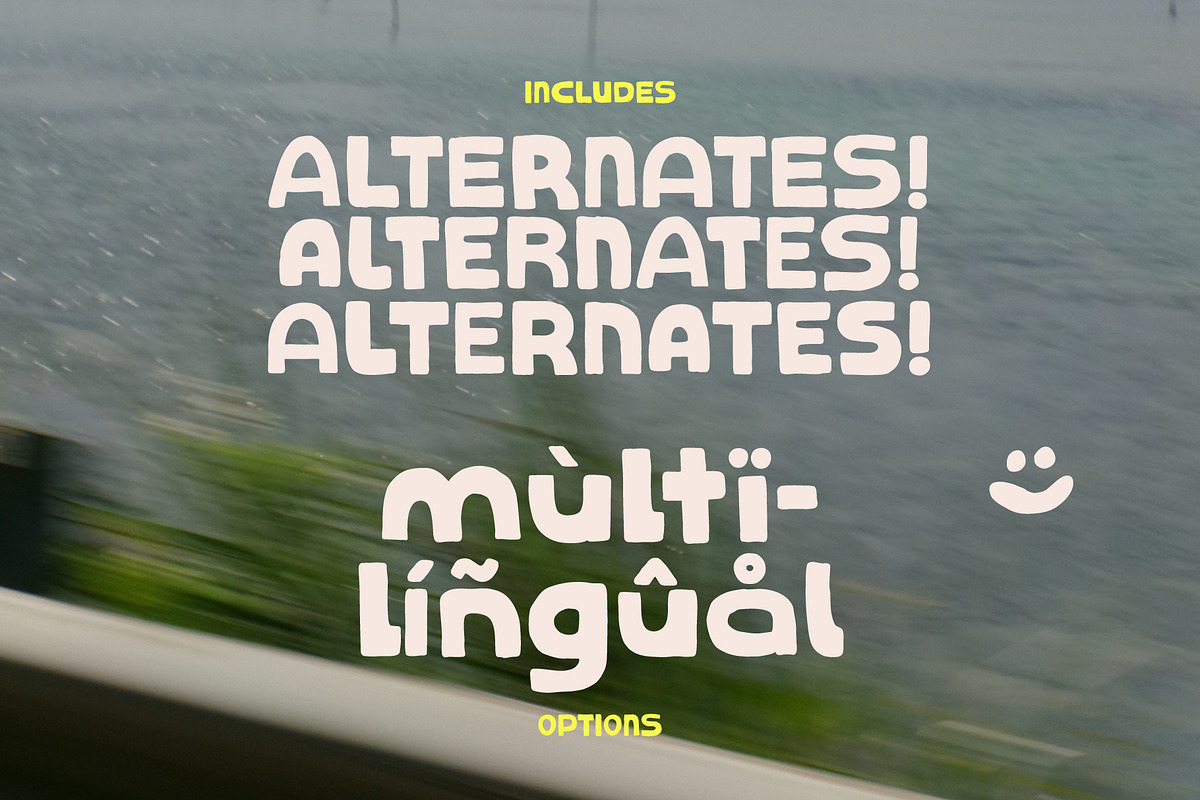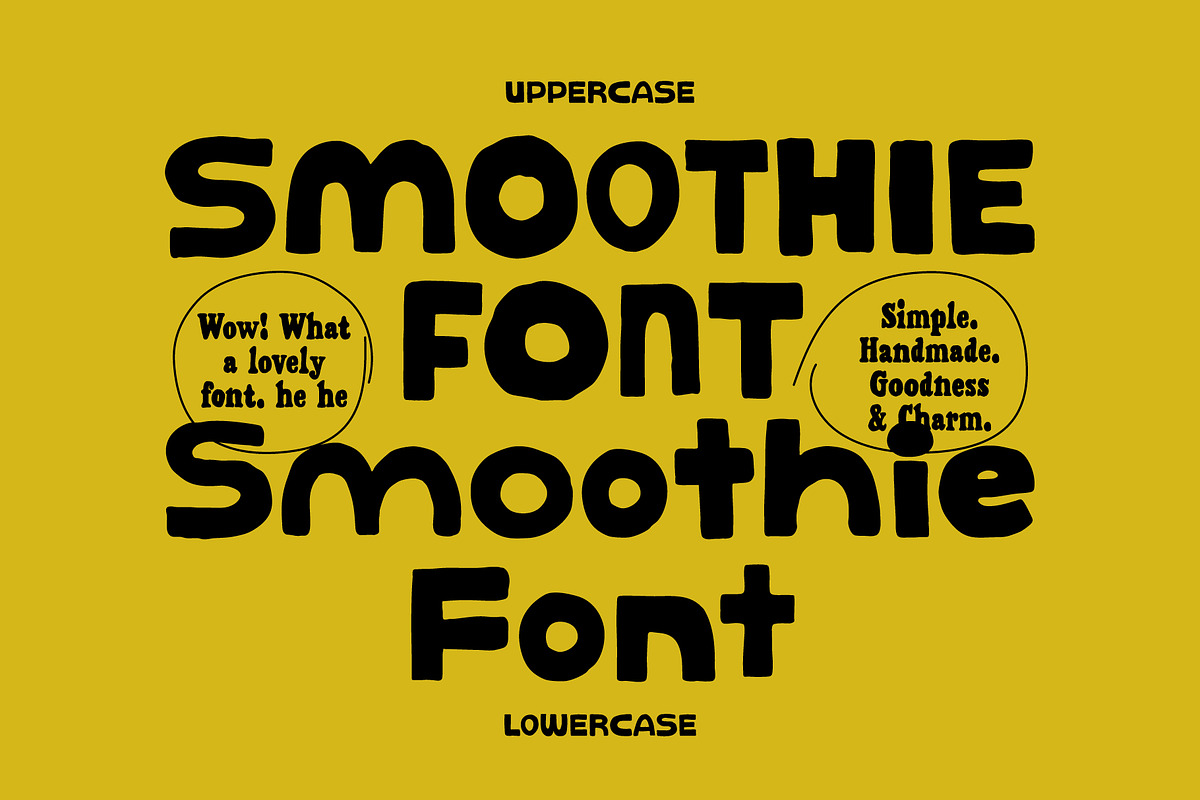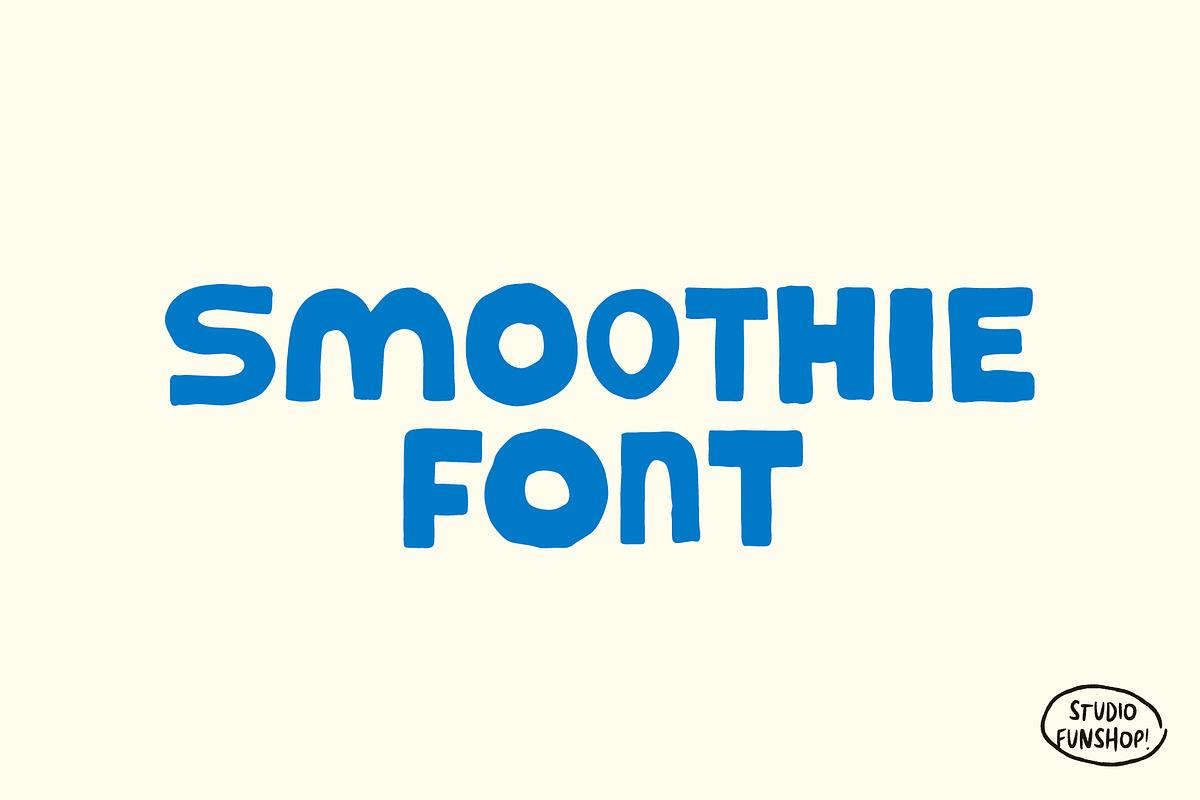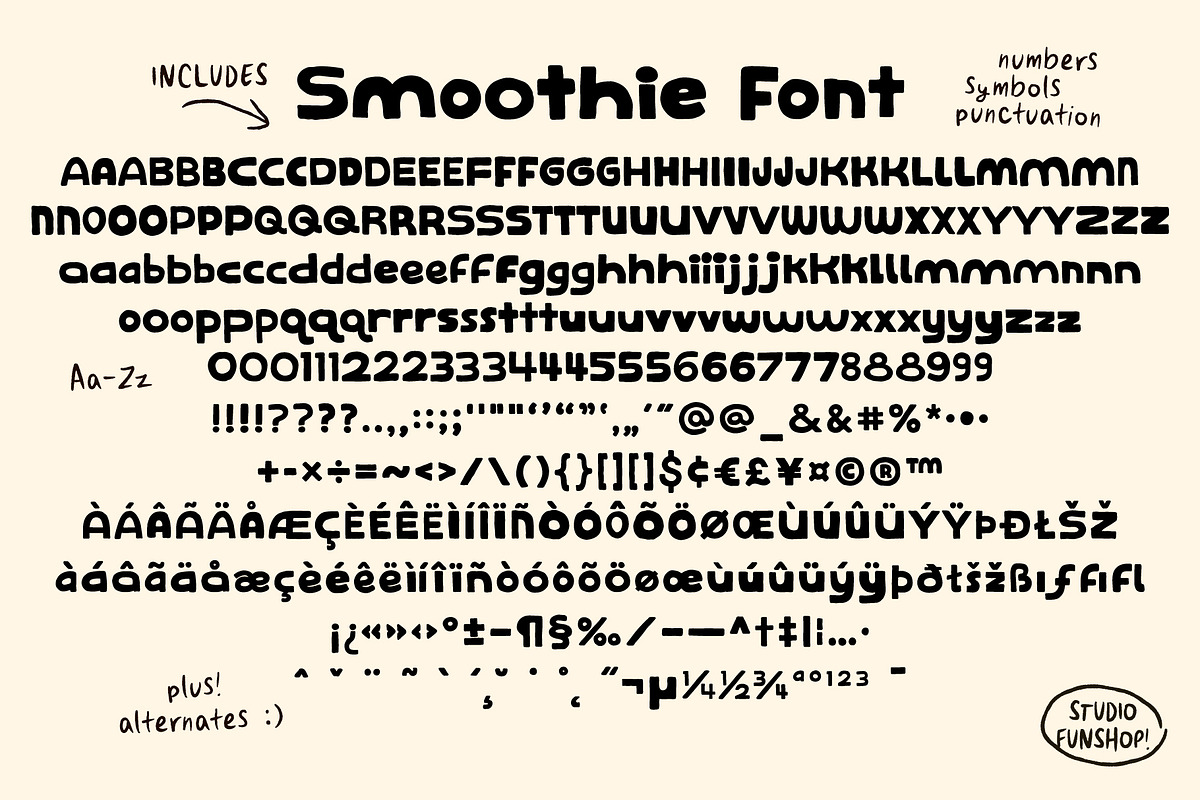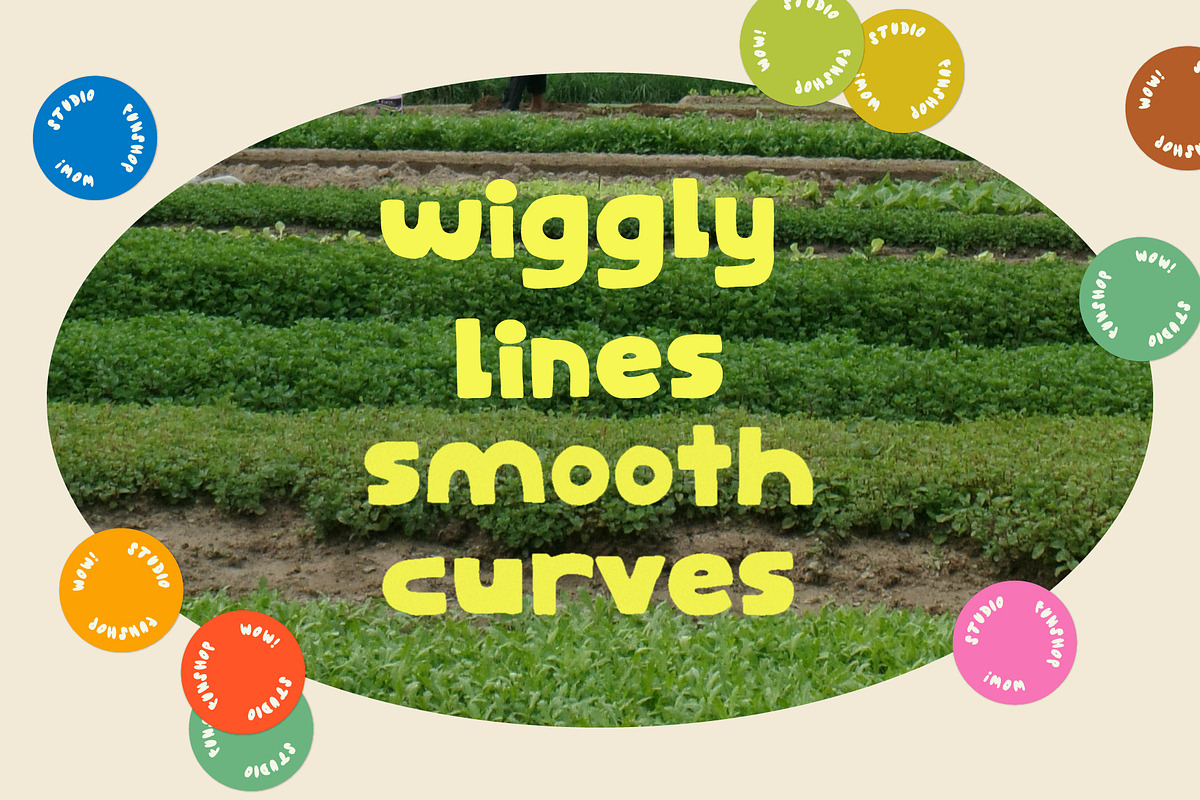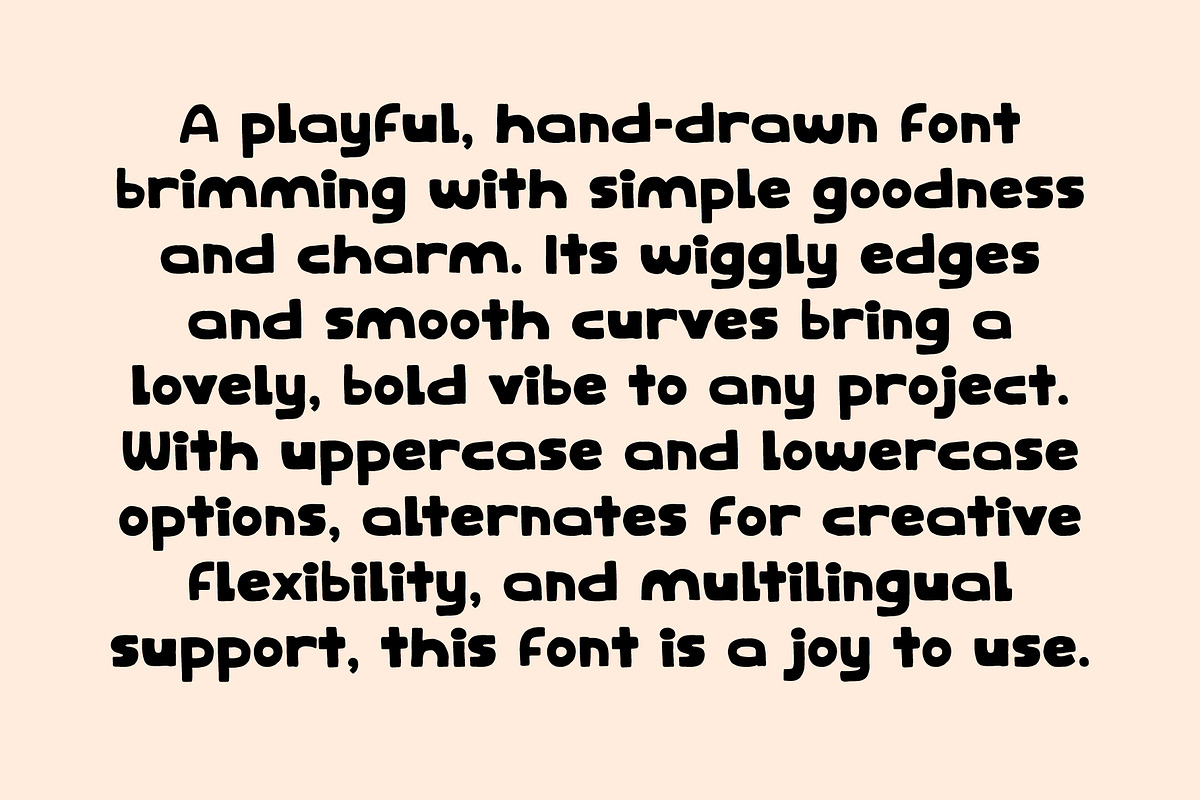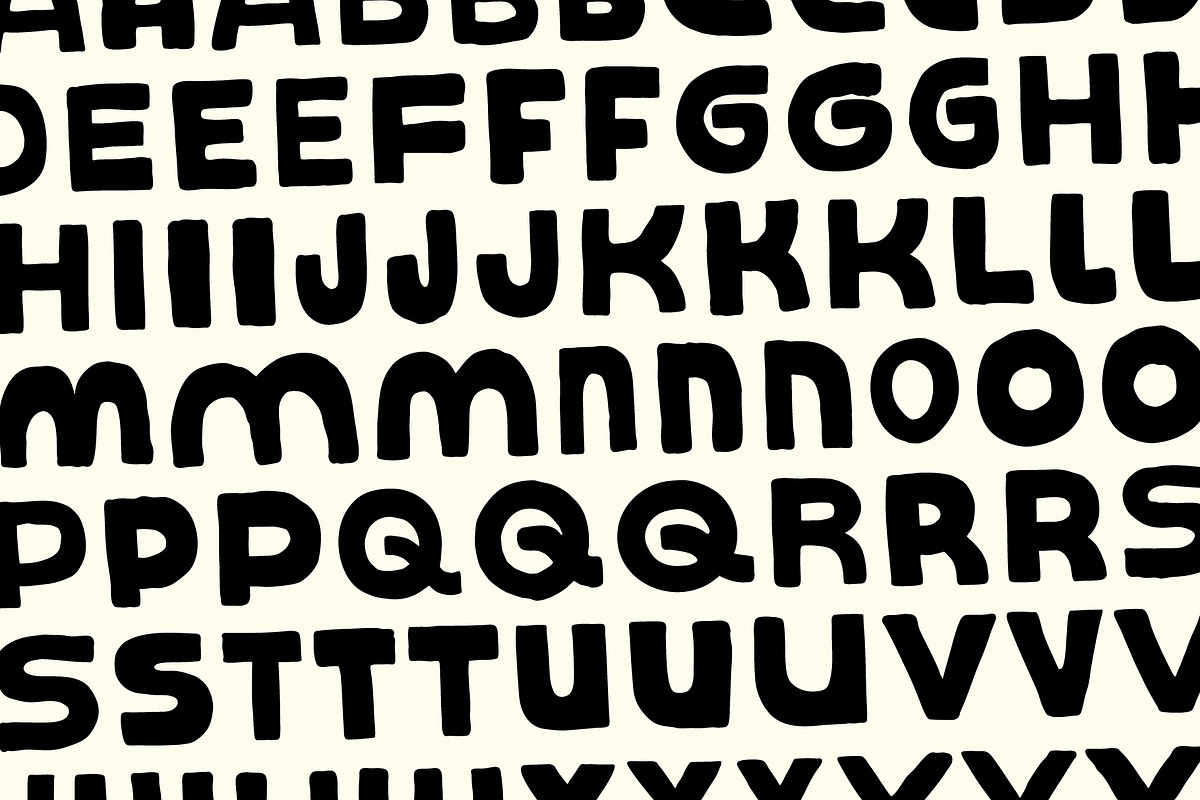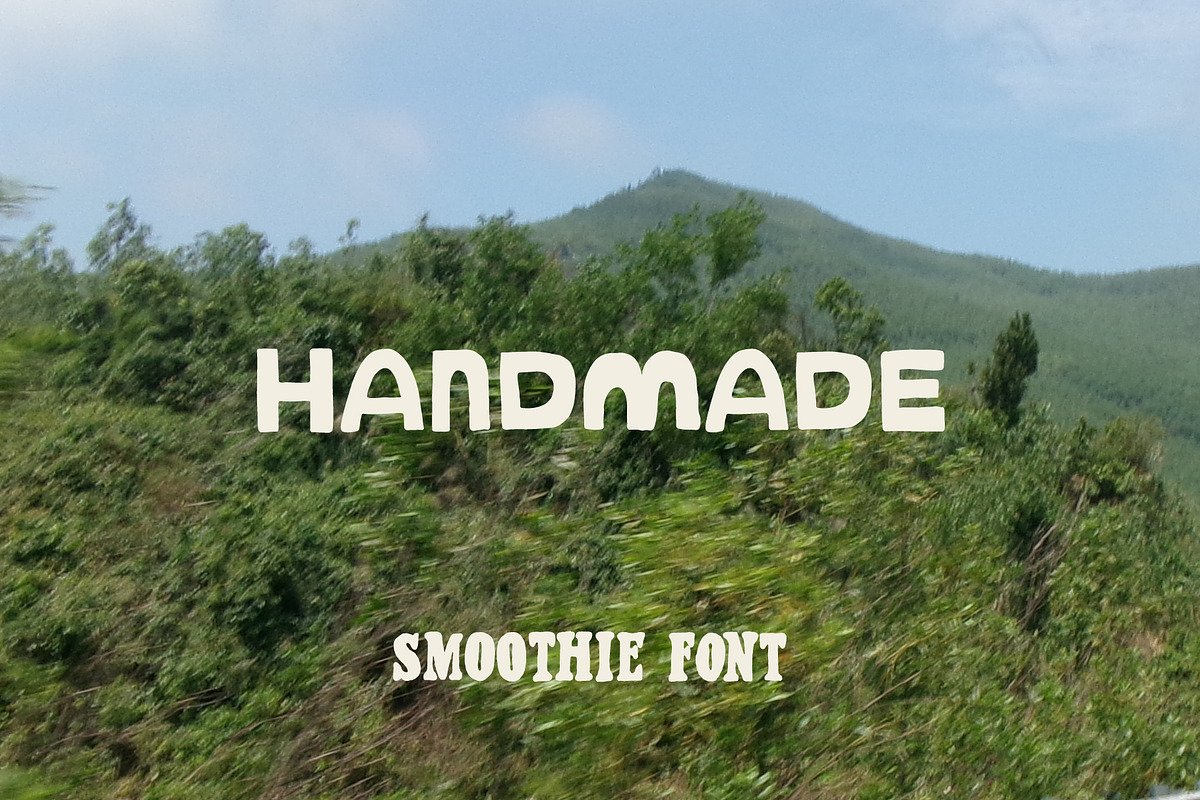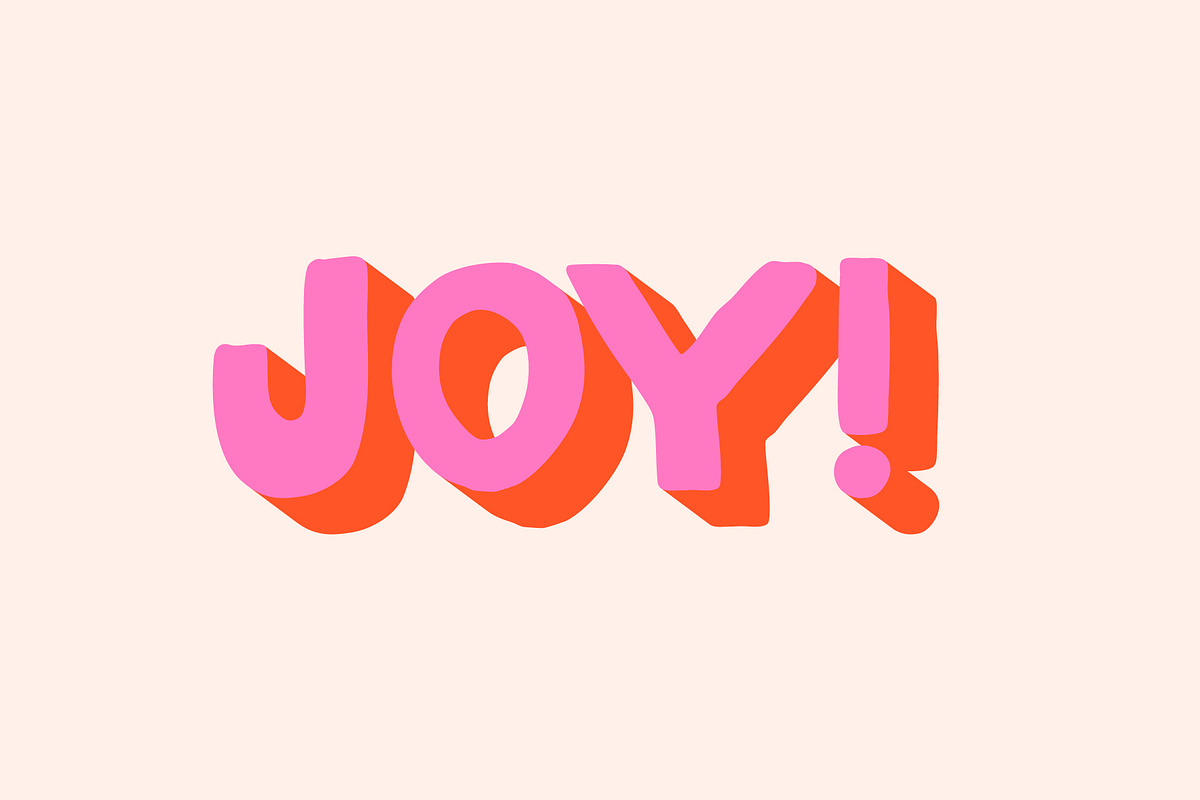
Smoothie Font - Hand Drawn Charm
Smoothie A playful, hand-drawn font brimming with simple goodness and charm. Its wiggly edges and smooth curves bring a lovely, bold vibe to any project. With uppercase and lowercase options, alternates for creative flexibility, and multilingual support, this font is a joy to use.
Great for adding a handmade touch to social media designs, branding, logos, display, and more.
What's in the font? Uppercase and Lowercase Aa-Zz! Numbers! Symbols! Punctuation! Alternates! Some Multi-lingual Glyphs (see slides!)